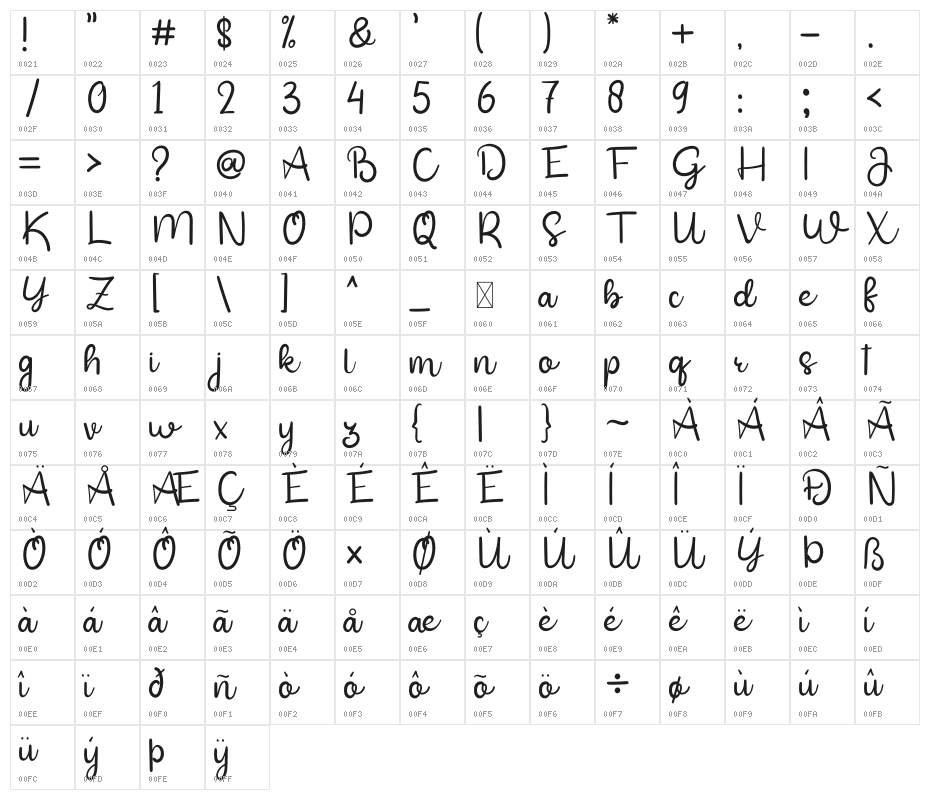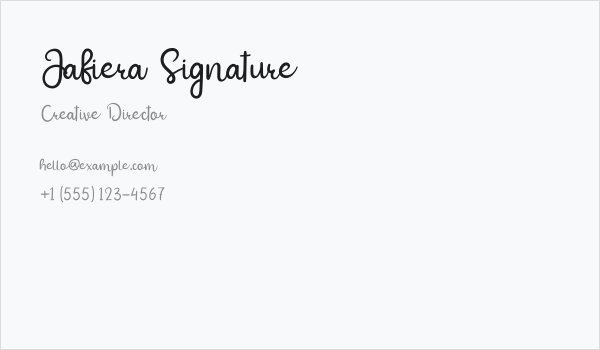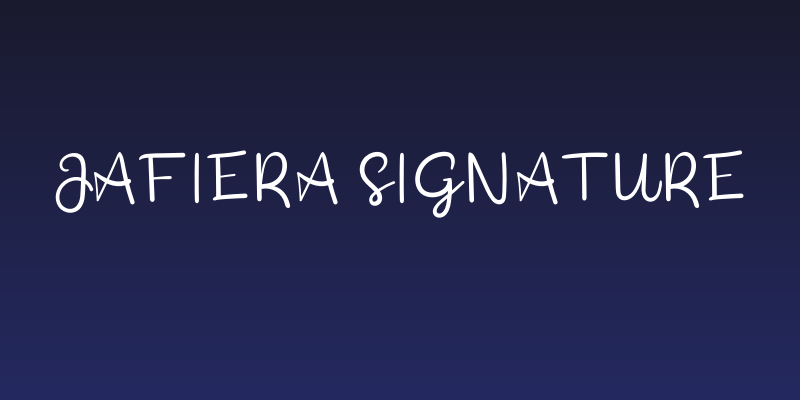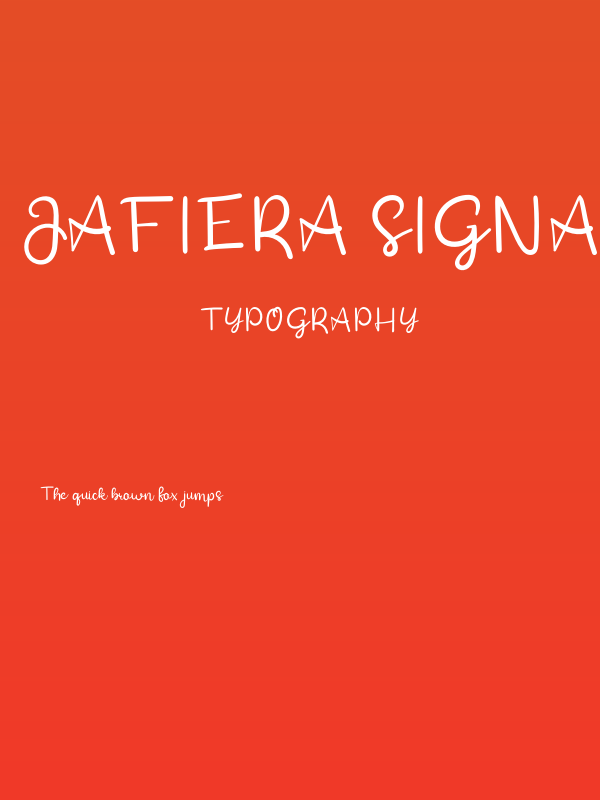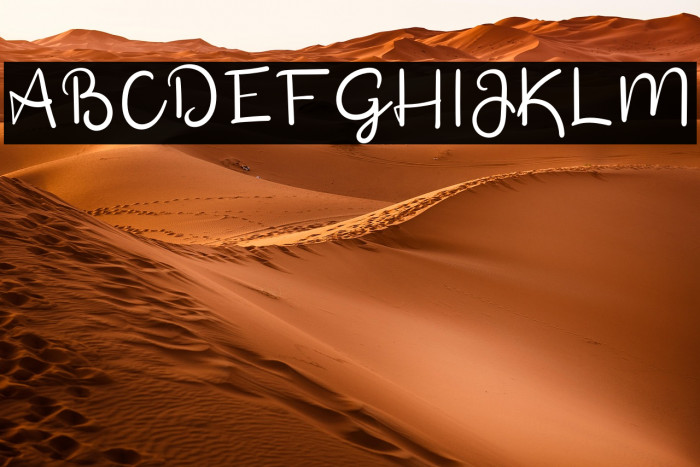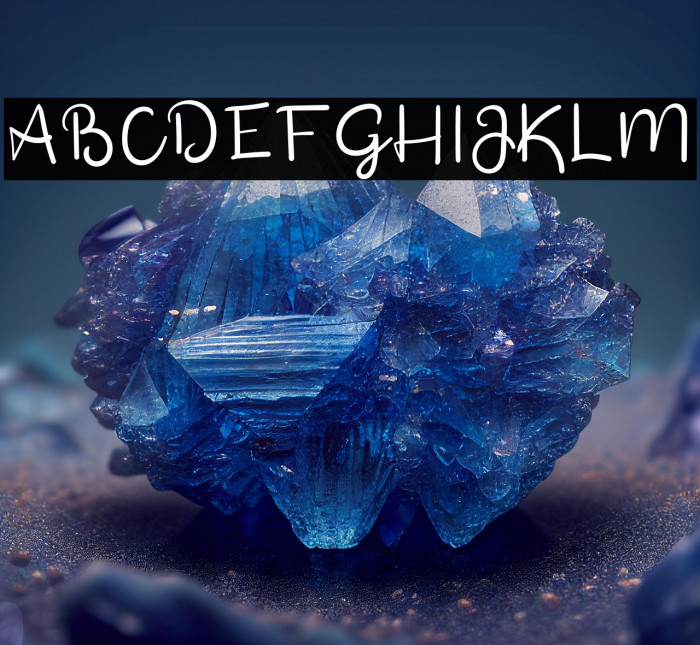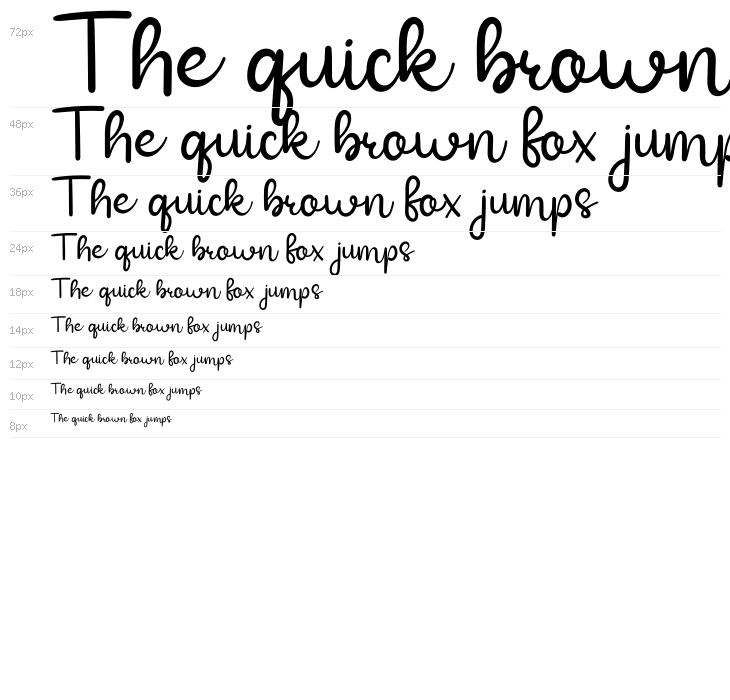
Jafiera Signature Font
Jafiera Signature Description
This font features a playful and modern handwritten style, characterized by its smooth, flowing curves and slightly irregular letterforms. The uppercase letters are bold and rounded, with a whimsical touch that adds personality. The lowercase letters maintain a consistent flow, enhancing the font's casual and friendly appearance. Numbers and special characters are designed to match the overall style, ensuring a cohesive look across all text elements. The font's unique charm makes it suitable for creative projects that require a personal touch.
| Proposed Projects | Ideal for greeting cards, invitations, branding, and social media graphics. |